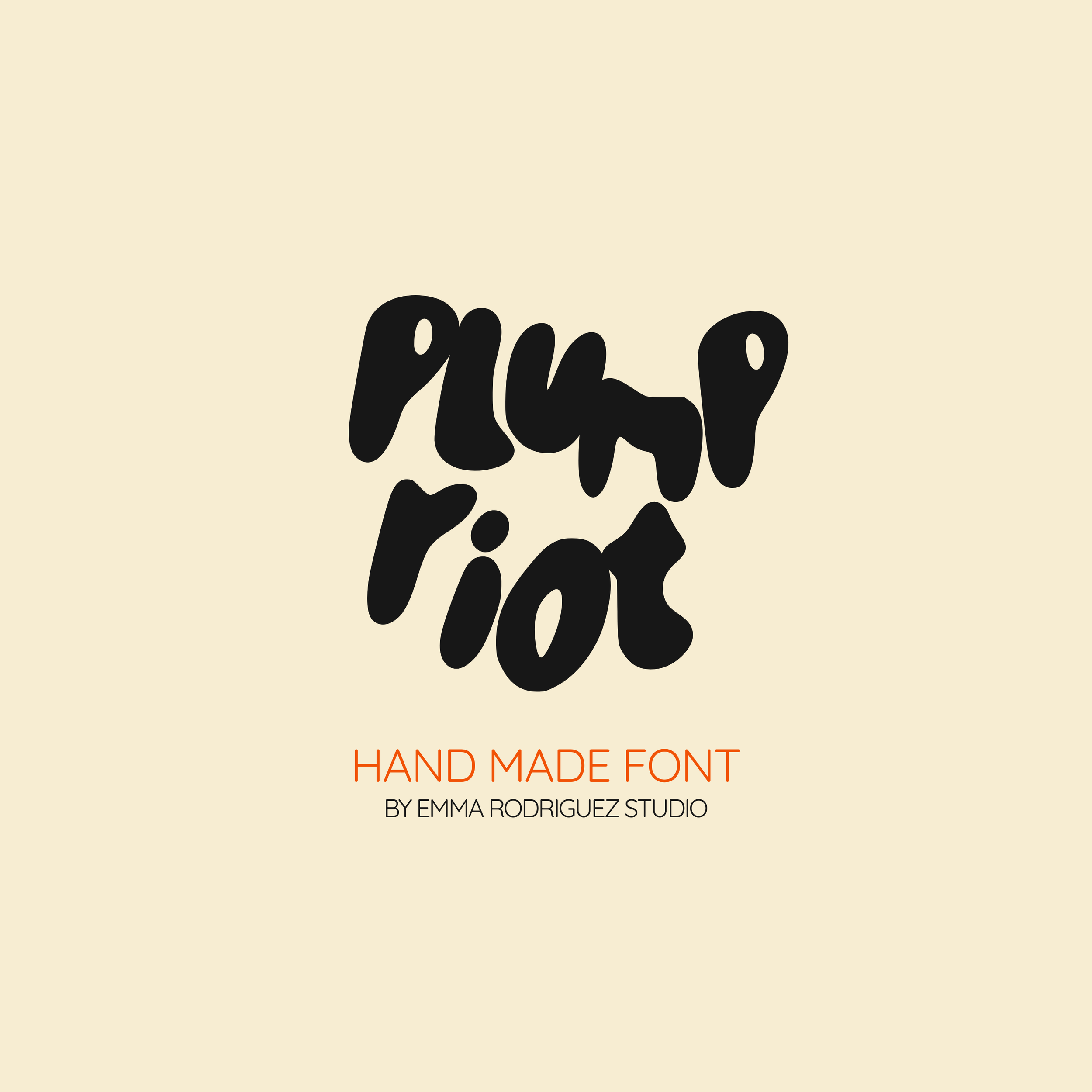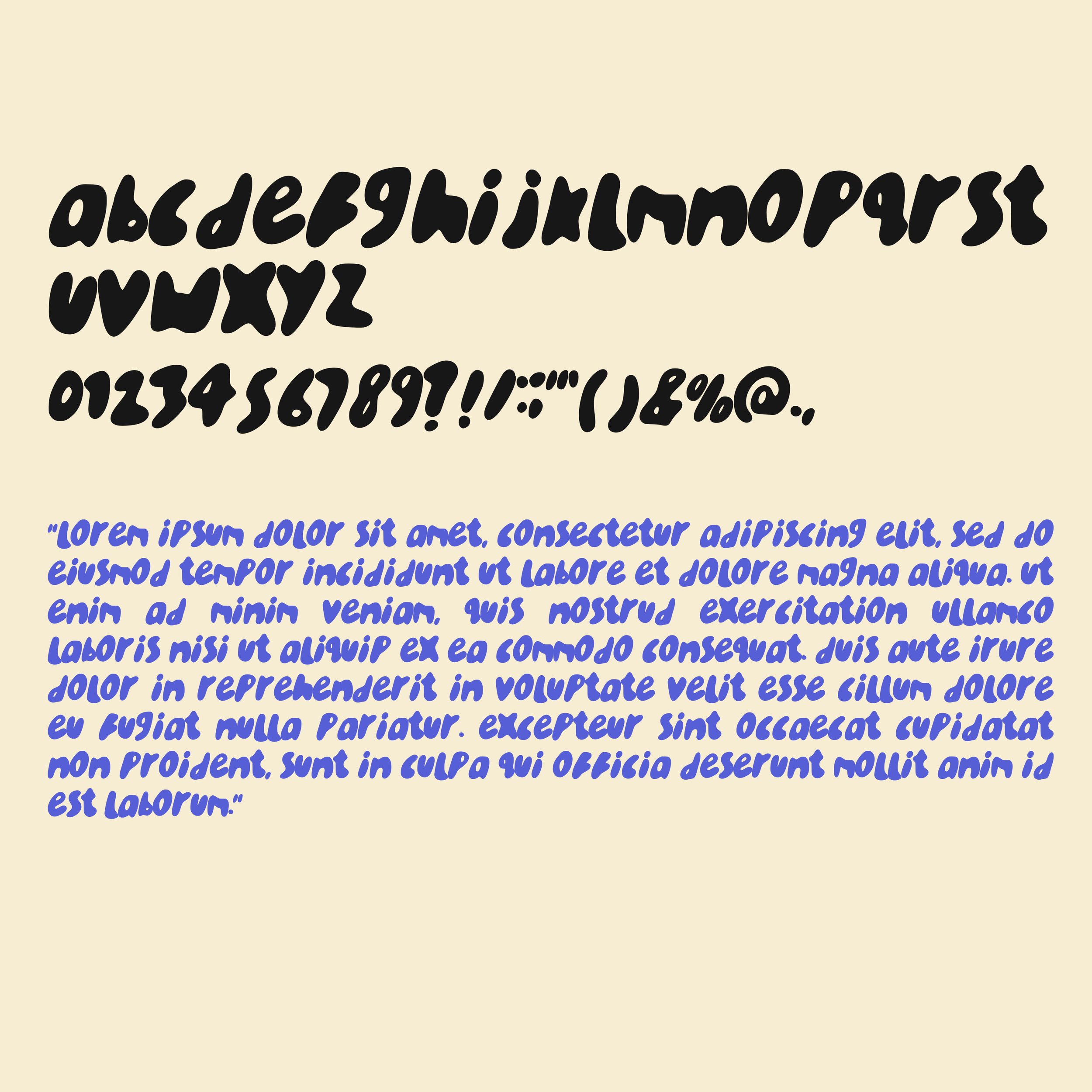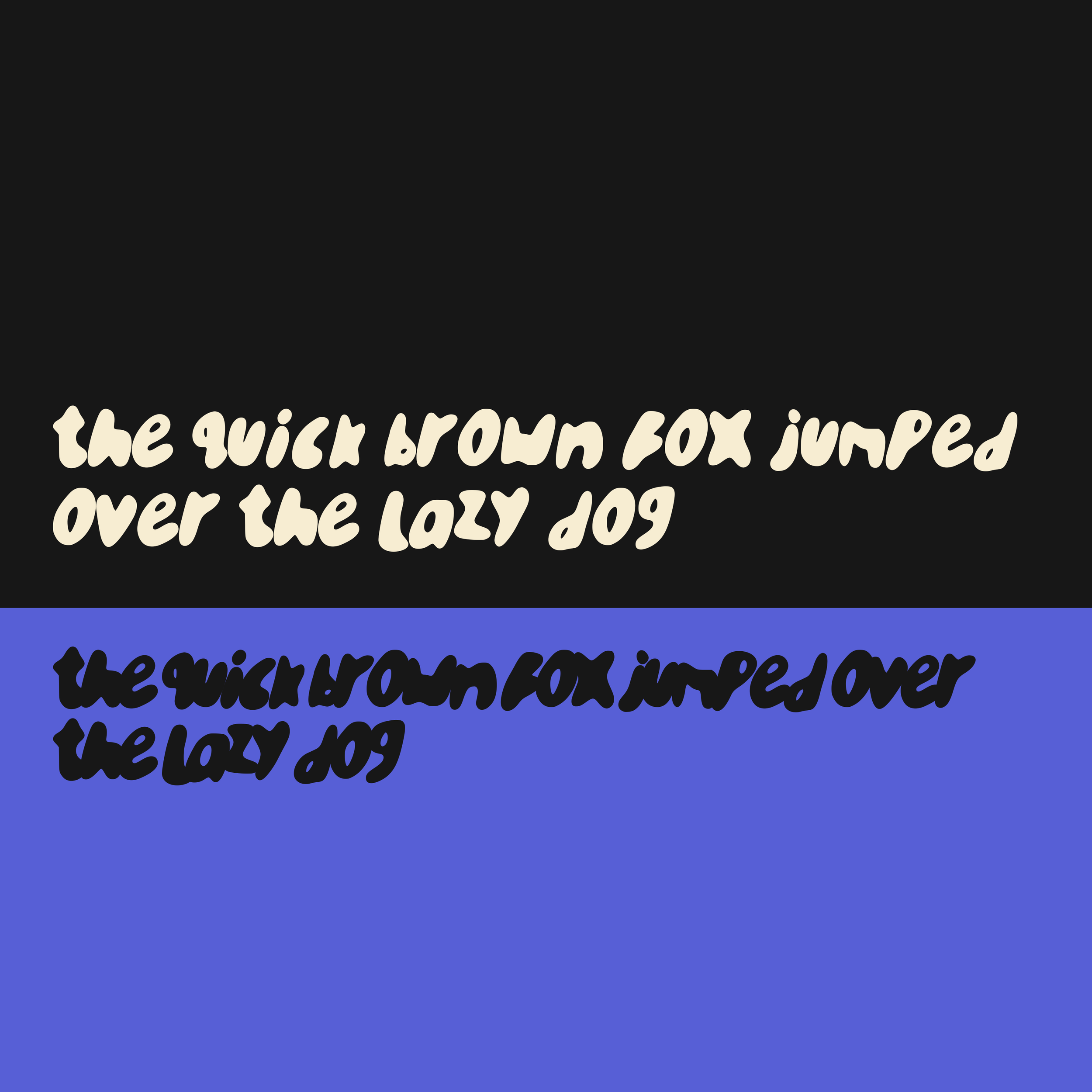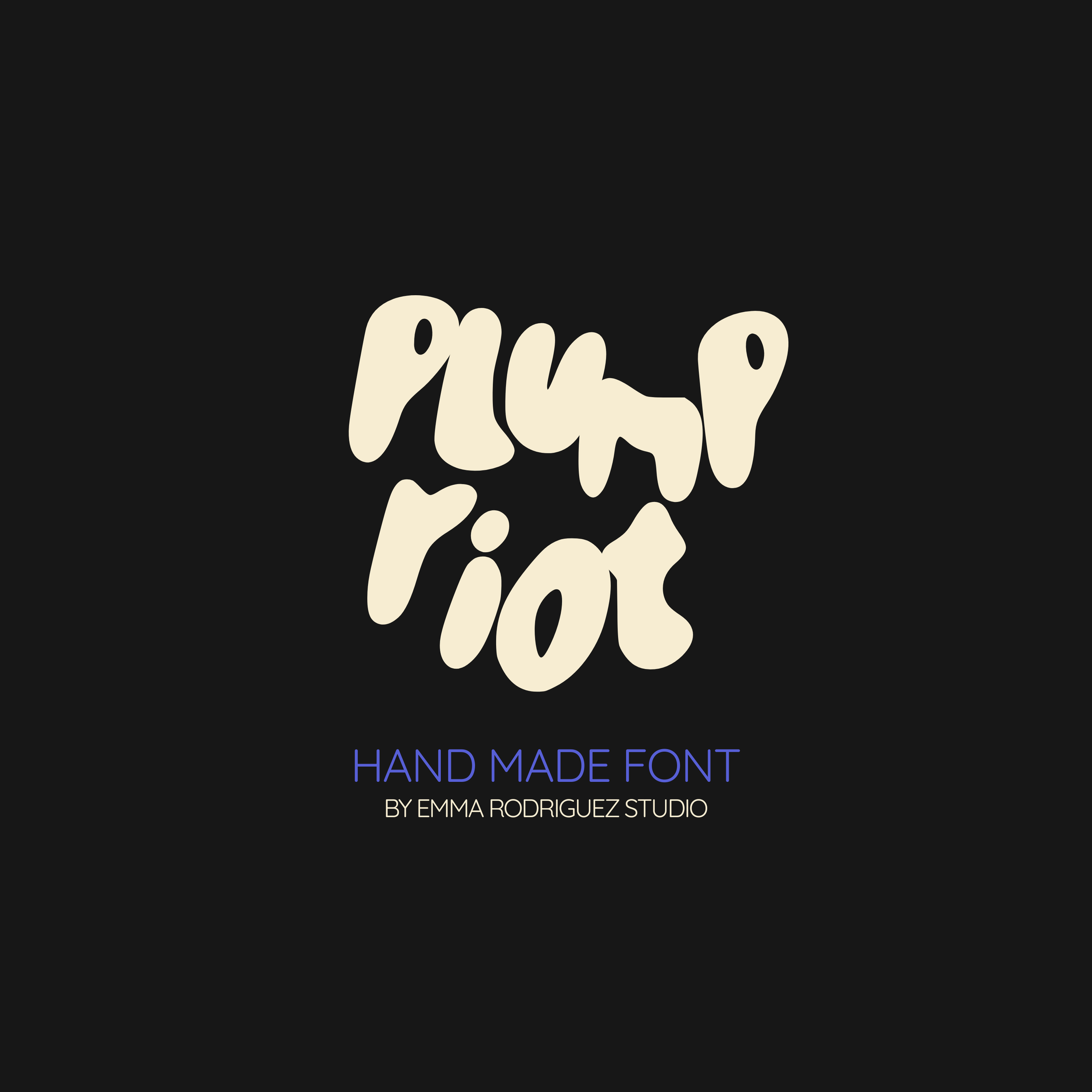
Plump Riot Font - Thick Bubbly Fun
Meet Plump Riot, a thick, heavy lowercase font that does not whisper. It stomps in, takes up space, and refuses to apologise.
Built with exaggerated curves, soft corners, and chunky weight, Plump Riot is all about bold presence. Every letter feels inflated and slightly unruly, like it has been pushed to its limits but still holds together. It is playful, loud, and confident without trying to be neat.
This is the kind of typeface you use when thin and minimal just will not cut it.
Perfect for projects that need impact at first glance.
• All lowercase letters
• Numbers and basic punctuation
Use it for:
• Bold branding
• Poster headlines
• Album artwork
• Statement packaging
• Stickers
• Social media graphics
• Zines and indie publications
• Fun merchandise
Fonts by Emma Rodriguez Studio are made to have personality. Expect naive shapes, wonky details, playful imperfections and type that doesn’t take itself too seriously. They’re not designed for clean, minimal branding. They’re for bold, quirky, maximalist projects that need something a little stranger, sillier and more expressive.